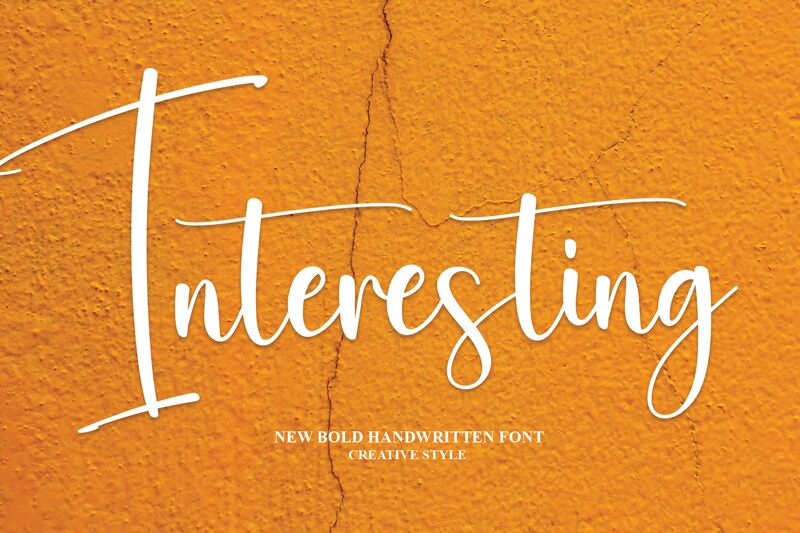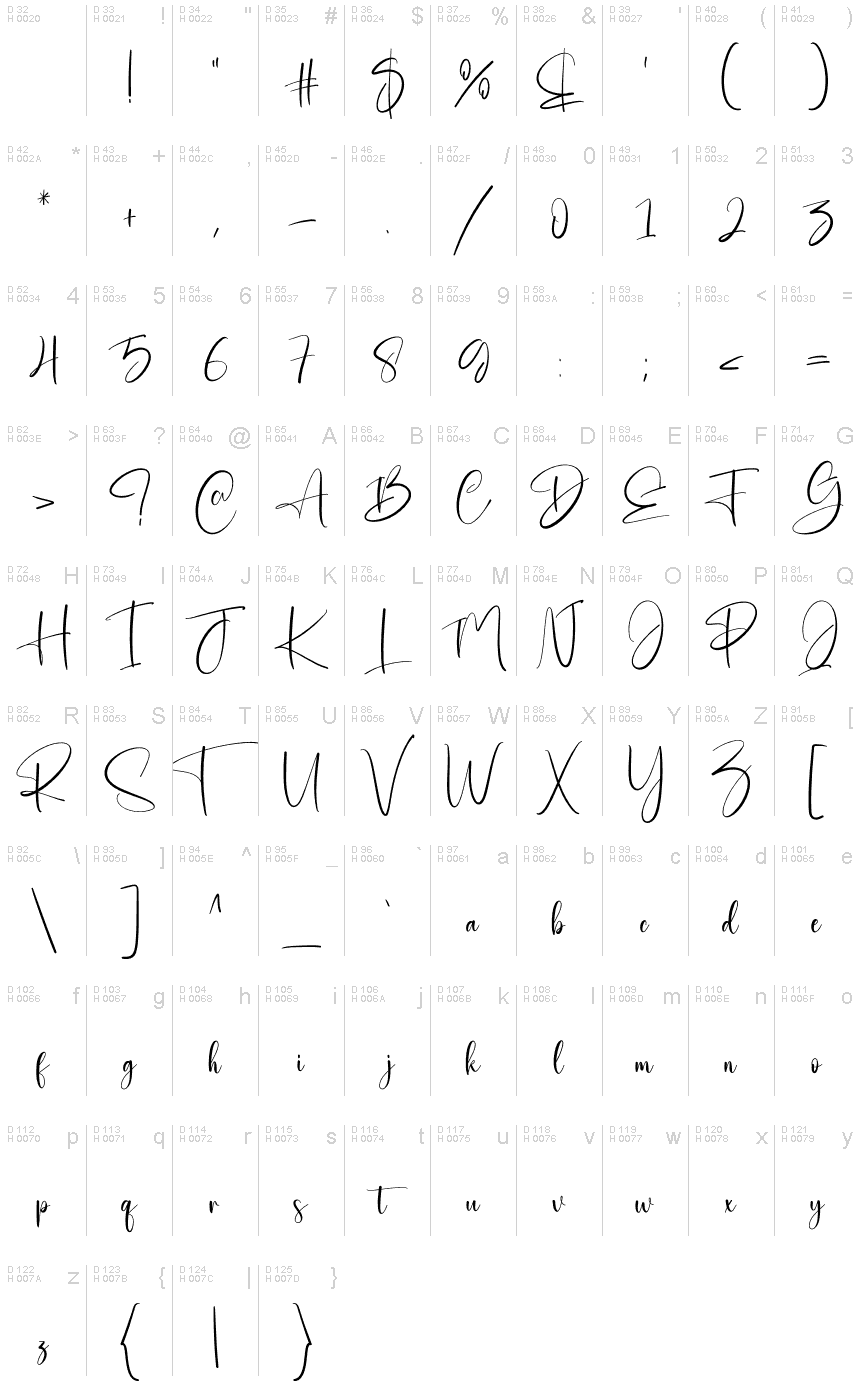
Interesting
The Interesting font, designed by Scratchones, is a charming handwritten typeface with a semi-light weight.
This font brings a playful and whimsical touch to any project, making it perfect for children's books and illustrations. Its unique style adds character and authenticity to posters, greeting cards, and invitations. With its legible yet distinctive appearance, the Interesting font is also well-suited for branding materials such as logos and packaging designs.
Whether you're working on a digital or print project, this font will captivate your audience with its delightful handwritten charm.